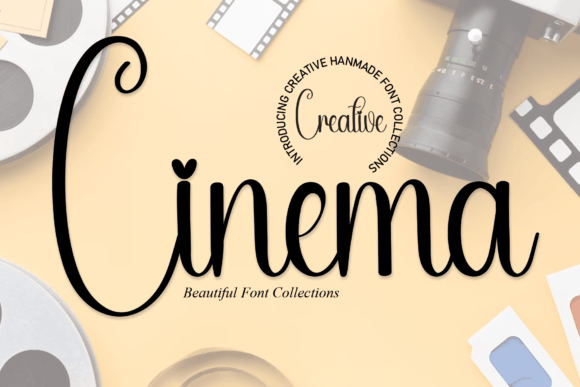
Bringing a Touch of Whimsy to Your Designs
Do you remember the moment when you stumbled upon the perfect font for a project, and suddenly, your creative vision came to life? It’s that magical feeling that every designer strives for. For me, it was when I discovered Cinema Font – a sweet and friendly handwritten font that adds a fun touch to any design.
Cinema Font is a versatile and creative font that’s perfect for writing wedding invitations, cards, or any other design that needs a personal and playful twist. Its friendly nature makes it an ideal choice for designers looking to add a touch of whimsy to their work. Whether you’re creating a custom wedding invitation or a birthday card, Cinema Font is sure to bring a smile to the recipient’s face.
As a valuable addition to any designer’s toolkit, Cinema Font offers endless possibilities for creativity and self-expression. Its unique charm and character make it a must-have font for anyone looking to add a personal touch to their designs.
Cinema Font Key Features
- Size: The font family includes 4 weights: Thin, Light, Regular, and Bold, each with a corresponding size range.
- Unique Characteristics: The font features a unique, hand-drawn design with subtle texture and imperfections, giving it a cinematic feel.
- Language Support: Cinema Font supports a wide range of languages, including Latin, Cyrillic, and Greek scripts.
Cinema Font Review
I recently had the chance to dive into the world of Cinema Font, and I must say it’s been a wild ride. ✨ Let’s start with the positives.
- Unique Aesthetic: Cinema Font has a distinct, retro feel that’s perfect for adding a touch of nostalgia to your projects.
- High Contrast: The bold lines and high contrast make it easy to read, even at smaller font sizes.
- Customization Options: With a range of weights and styles, you can customize Cinema Font to fit your project’s needs.
Now, let’s talk about the not-so-great things. ⚠️
- Limited Language Support: Unfortunately, Cinema Font doesn’t support a wide range of languages, which can be a major limitation for global projects.
- No Italic or Oblique Styles: While the bold and regular styles are great, the lack of italic and oblique styles can make it harder to create emphasis.
Overall, Cinema Font is a great choice for projects that need a unique, retro feel. While it has its limitations, the customization options and high contrast make it a solid choice for designers looking for a bold font. Just be aware of the language limitations and lack of italic styles before making a decision.
Use Cinema Font to add a touch of sophistication and elegance to your designs. It’s particularly well-suited for:
Movie titles and credits
Advertising and marketing materials
Any design that requires a luxurious and high-end feel.